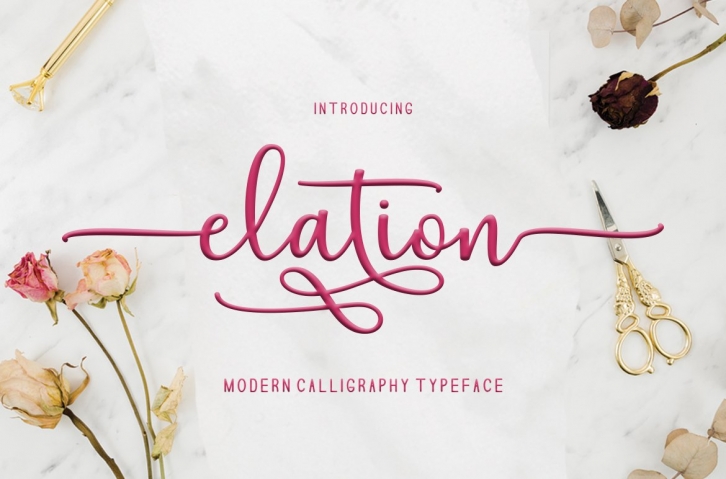
Introducing
Elation Script a new fresh & modern script with a handmade calligraphy style, decorative characters and a dancing baseline! So beautiful on invitation like greeting cards, branding materials, business cards, quotes, posters, and more!!
Elation Script come with 462+ glyphs. The alternative characters were divided into several Open Type features such as Swash, Stylistic Sets, Stylistic Alternates, Contextual Alternates. The Open Type features can be accessed by using Open Type savvy programs such as Adobe Illustrator, Adobe InDesign, Adobe Photoshop Corel Draw X version, And Microsoft Word. And this Font has given PUA unicode (specially coded fonts). so that all the alternate characters can easily be accessed in full by a craftsman or designer. Elation Script: Uppercase & Lowercase International Languange & Symbols Support Punctuation & Number PUA Unicode Range Standard Stylistic Alternates Stylistic Set 1-13 Character Variant Contextual.